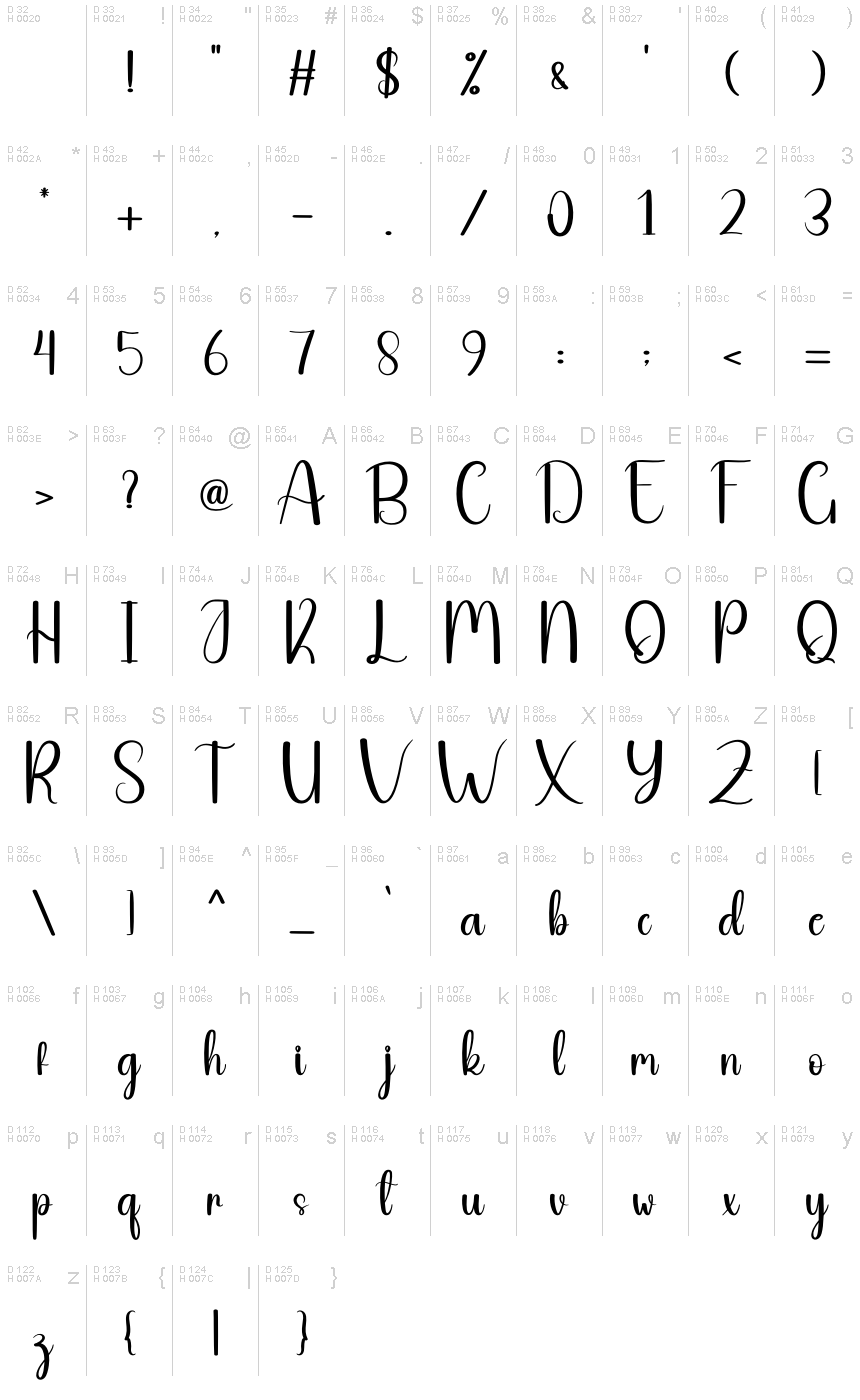
Pleased
Pleased is a captivating handwritten font that exudes a sense of effortless elegance. Designed by Andi Moz, this font boasts a beautiful, flowing script that seamlessly blends modern and classic elements. The soft, organic strokes and natural variations in the letterforms create a warm, inviting aesthetic, perfect for a range of design applications.
Pleased's versatility shines through, making it a versatile choice for branding, editorial, and even personal projects. Whether used for eye-catching headlines, delicate body copy, or impactful logos, this font's distinctive character adds a touch of charm and personality to any design.